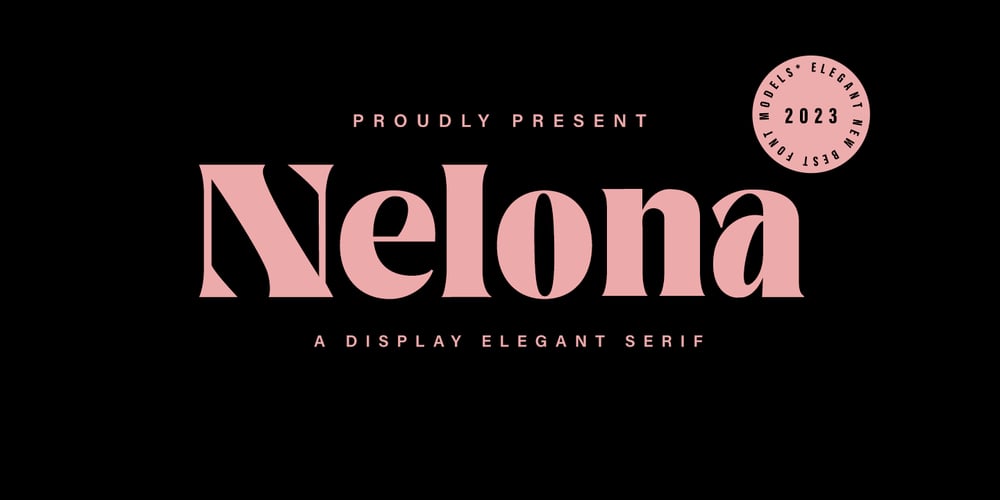
Nelona
Nelona font
Nelona Font Family was designed by M Akmal and published by Mega Type. Nelona contains 1 styles and family package options. Nelona An elegant font designed when in a creative mood and perfect shape, inspired by the bold, natural look of serifs so beautiful for today’s fashion. bold, balanced and varied, born for luxury and beauty. including uppercase letters, numbers, and various kinds of punctuation.Nelona is perfect for invitations, logos & branding, photography, advertising, watermarks, social media posts, product packaging, product designs, labels, wedding designs, stationery, special events or anything else needed to create a theme.Hope you enjoy our fonts and if you have any questions,feel free to message & I’ll be happy to help ๐Ÿ™‚